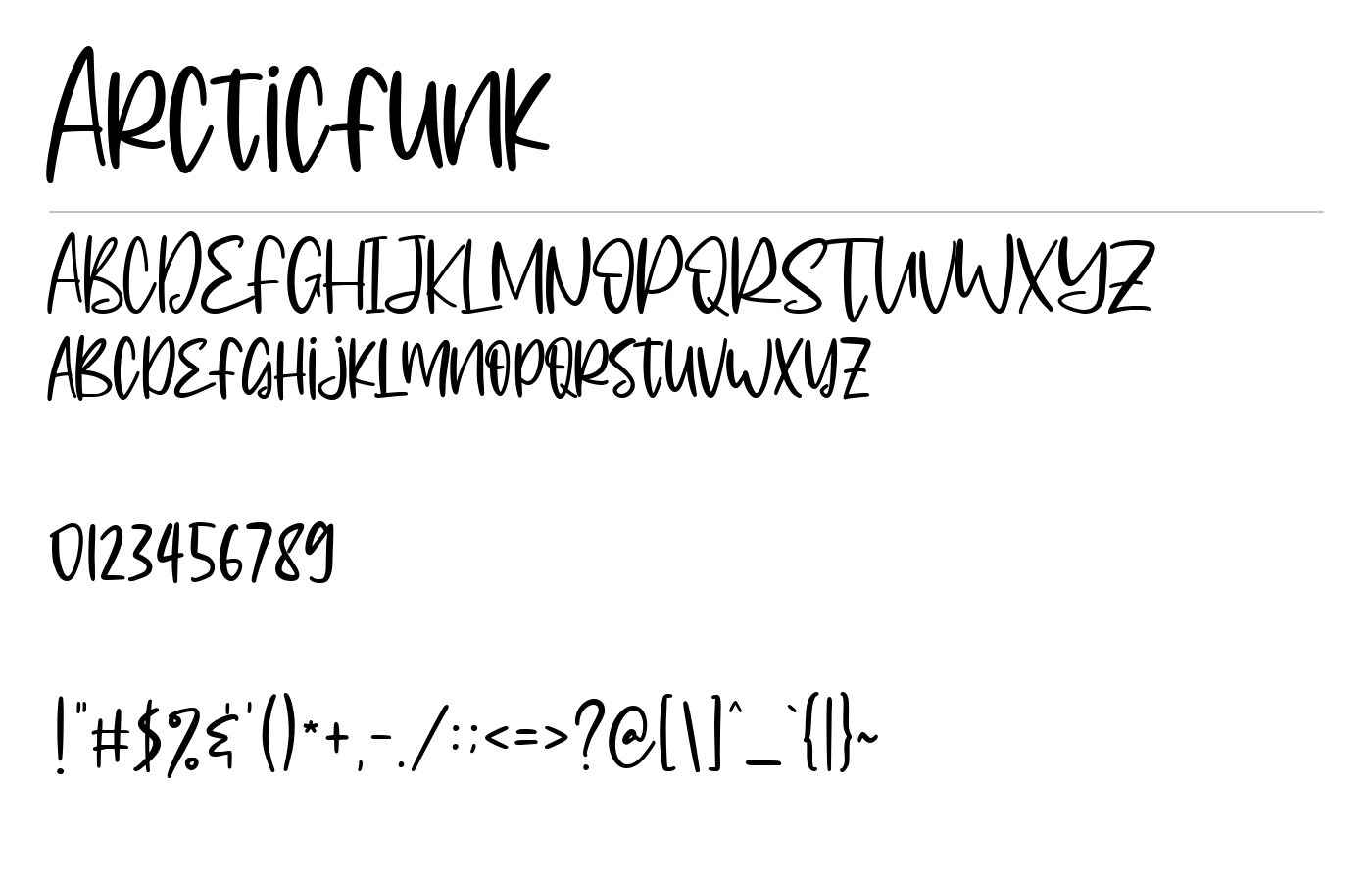
Arcticfunk is a playful, handwritten sans serif font characterized by its lively, casual strokes and tall, narrow letterforms. It has a light weight and an airy feel, making it perfect for projects that want to convey friendliness, creativity, and approachability. This font works well for informal branding, social media graphics, and fun headlines where a personal touch is desired.
Arcticfunk Font
About Arcticfunk Font